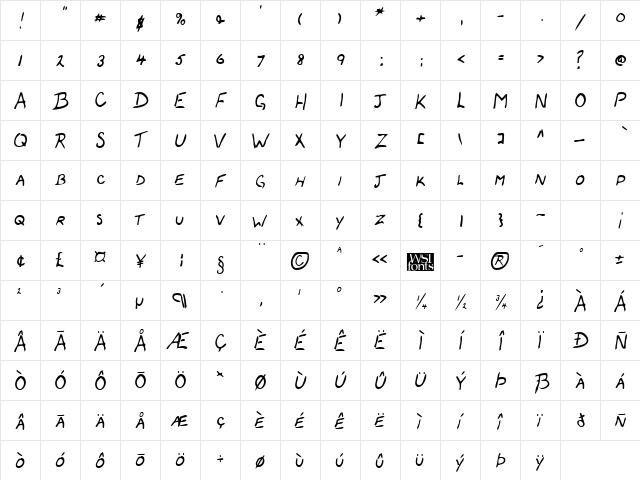
ColemansHand Regular
Design Context for ColemansHand Typeface
ColemansHand flows with the natural rhythm of handwritten lettering, making it ideal for designs that call for warmth and personal expression.